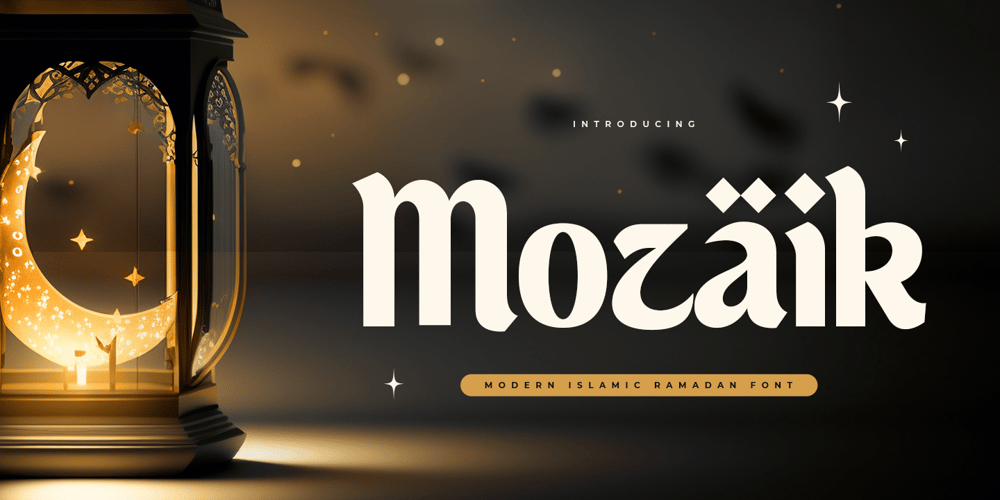
Mozaik
Mozaik font
Mozaik Font Family was designed by Zamroni Hamzah and published by Sensatype Studio. Mozaik contains 1 styles and family package options. Mozaik is Modern Islamic Ramadan , Islamic and Arabic Signature are ready for Ramadan event.It is a Display font with moderate contrast that perfect for Ramadan branding projects, logo, social media posts, designs, and any projects, it makes with a high level of legibility. Font ready with: Any options to get creative variations (combination of Any Alternates) Preview as a inspirations that you can do with this font Ready with Lowercase and Uppercase characters Wish you enjoy our font. 🙂